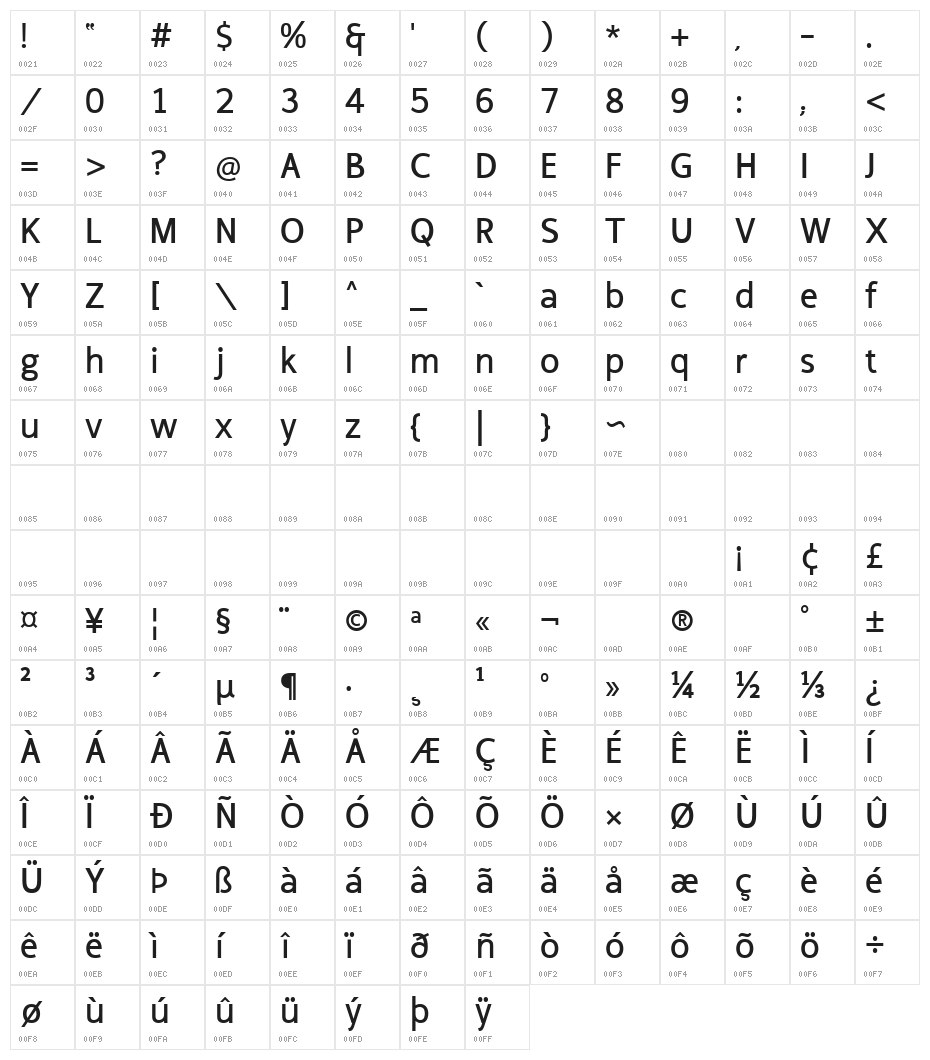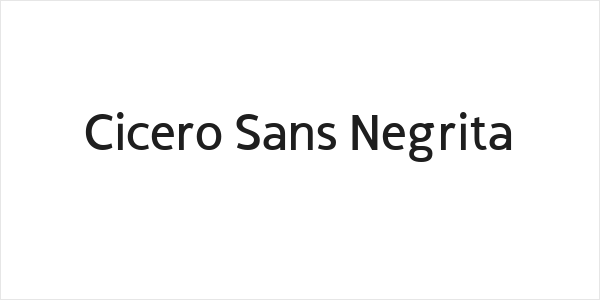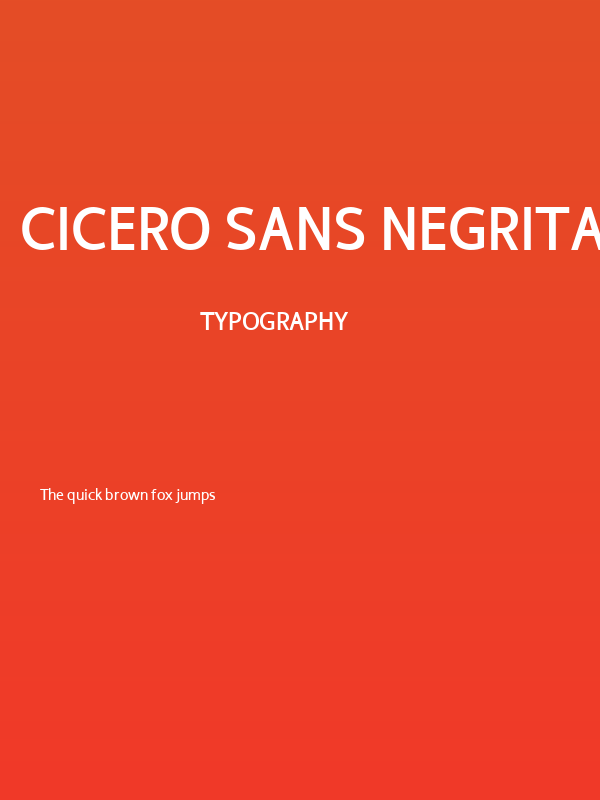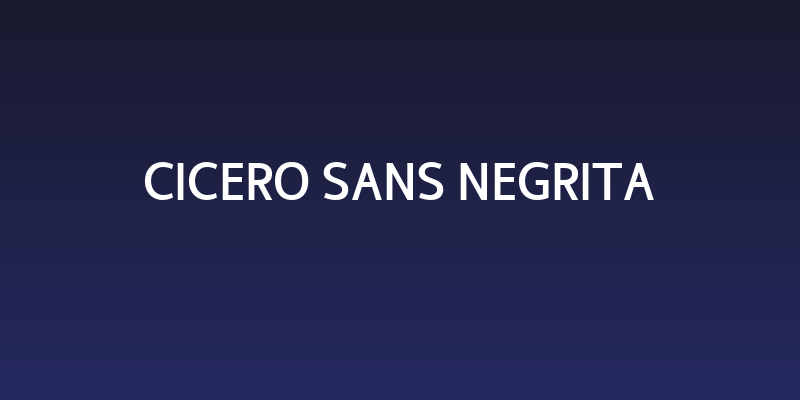
Cicero Sans Negrita Font
Cicero Sans Negrita Description
This typeface is a bold, sans-serif font characterized by its clean and modern appearance. The letters are uniform in width, providing a balanced and harmonious look. The uppercase and lowercase letters are well-proportioned, with a slight emphasis on verticality, giving the font a strong and assertive presence. The numerals are clear and easily distinguishable, making them ideal for both digital and print formats. The special characters are designed to complement the overall style, ensuring consistency across all glyphs. This font is versatile, suitable for a wide range of applications, from branding to editorial design.